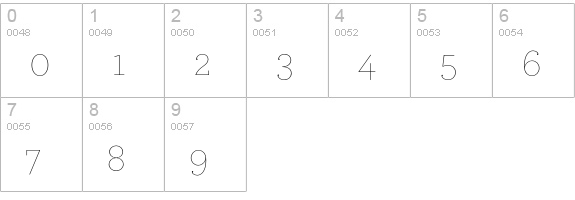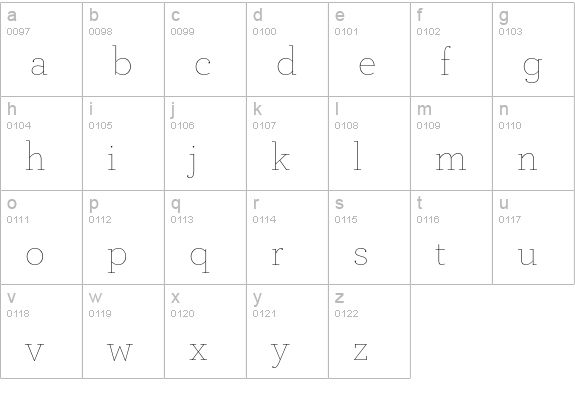
ArcherPro Thin Font Details
ArcherPro Thin is a delicate, low-contrast variant in the ArcherPro typeface family \xE2\x80\x94 well suited to fashion editorial, minimal branding, and high-contrast display.
ArcherPro Thin font is a sleek and modern typeface that exudes elegance and sophistication. With its clean lines and minimalistic design, this font is perfect for creating a contemporary and stylish look in your projects. Whether you're designing a logo, creating a website, or crafting a print layout, ArcherPro Thin font will add a touch of refinement to your work. The best part? ArcherPro Thin font is available for free download at FontsMarket.com. This means you can easily access this high-quality font without breaking the bank. Don't miss out on the opportunity to elevate your designs with the timeless appeal of ArcherPro Thin font. Download it today and start creating stunning visuals that command attention.